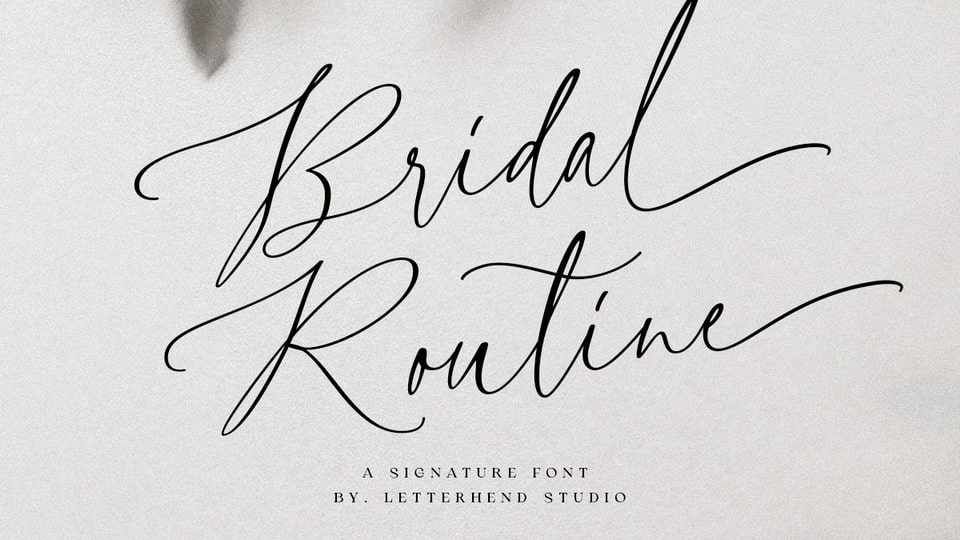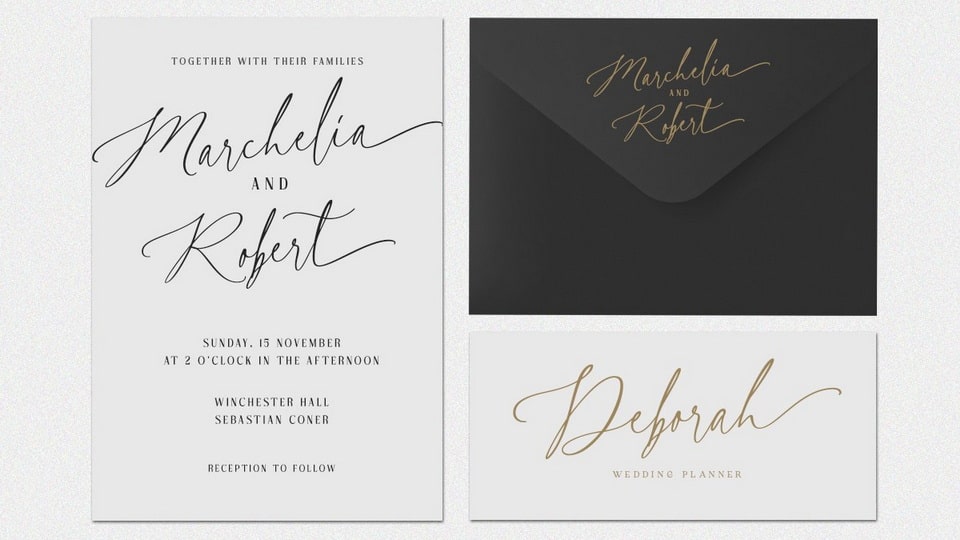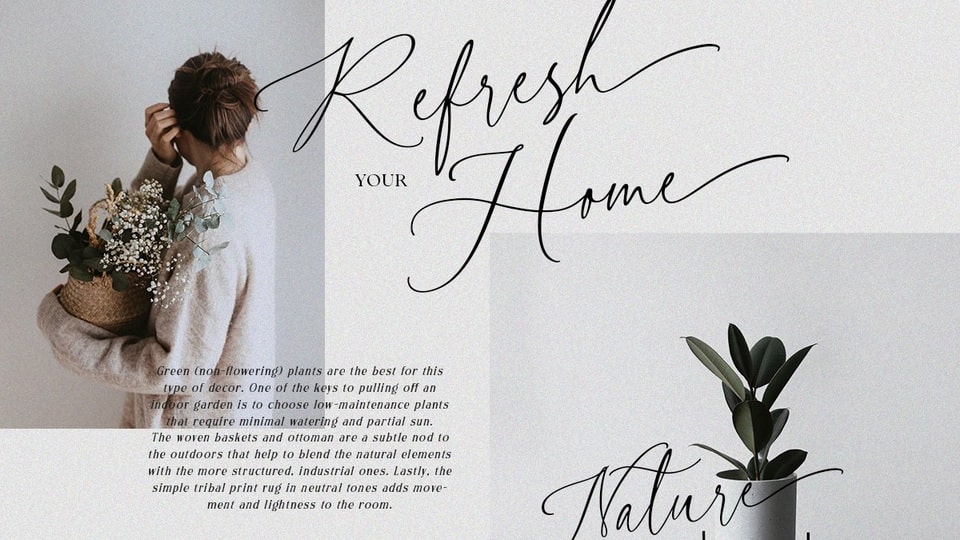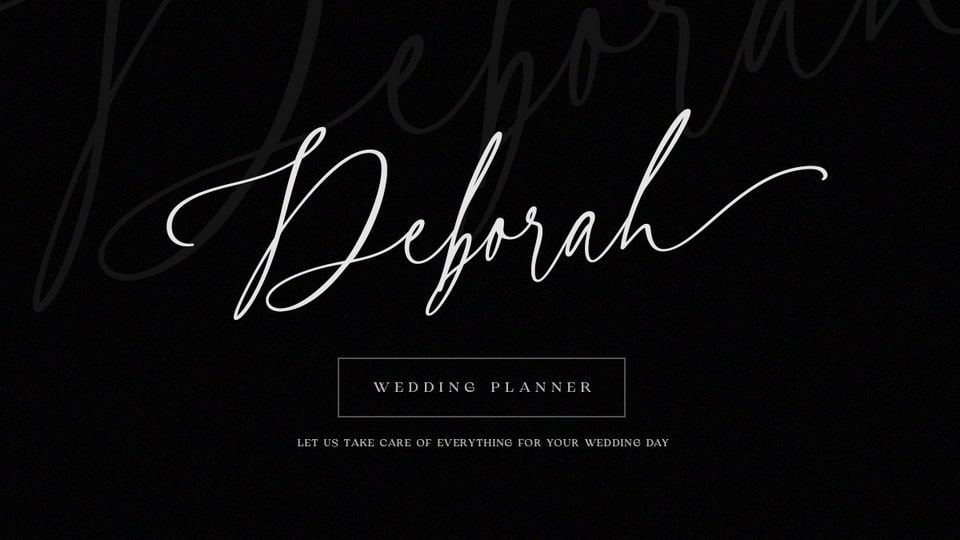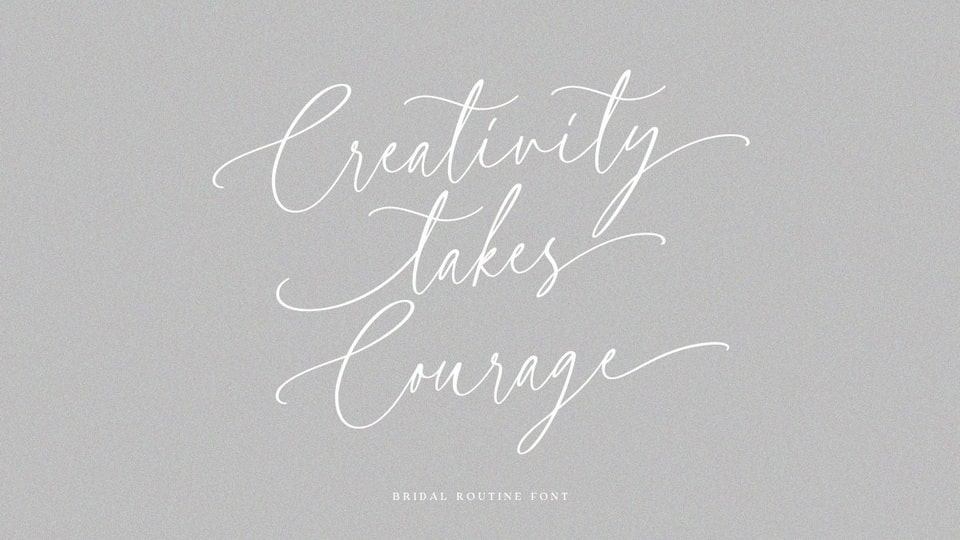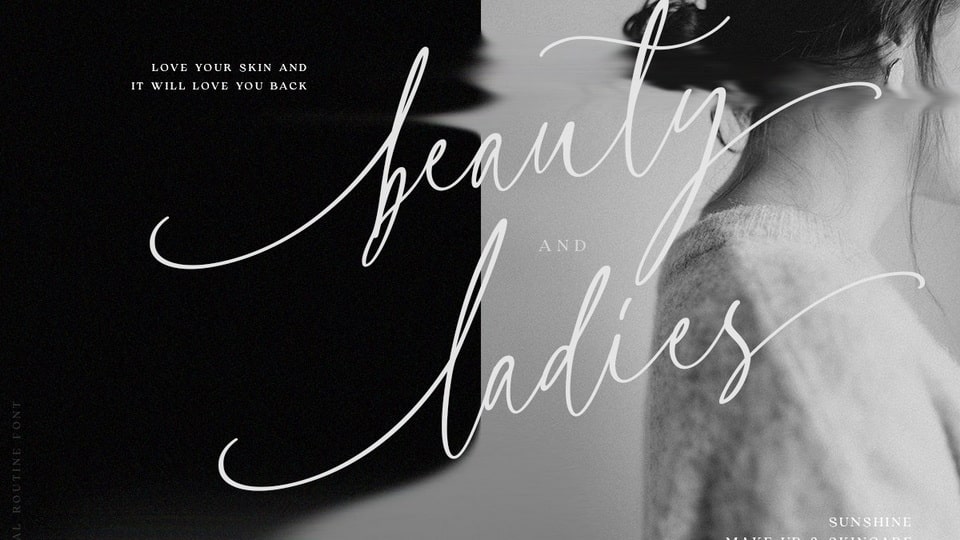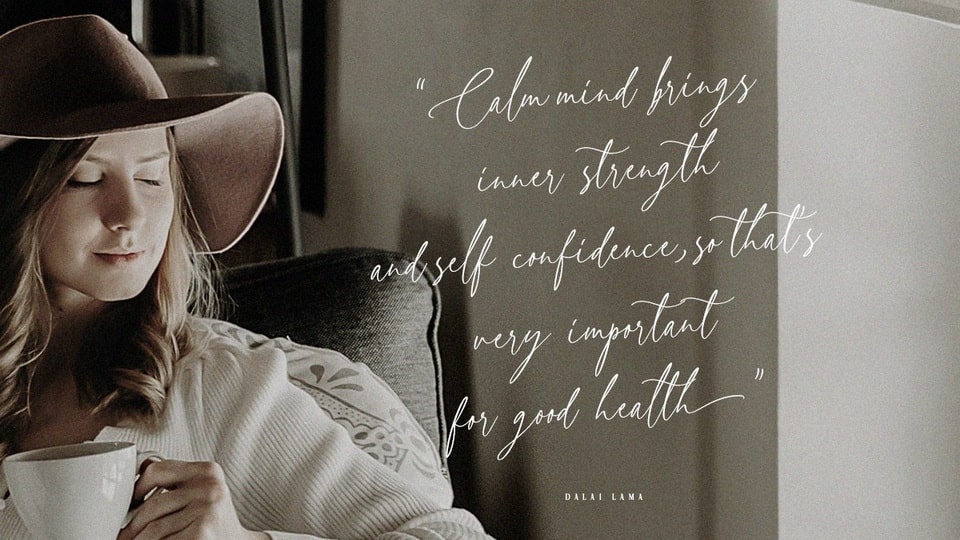
Bridal Routine is a beautiful signature script based on manual hand writing. The stylistic alternate, ligatures and the tick and thin stroke make this font looks a real hand writing instead of typing a font.
Bridal Routine font perfectly made to be applied especially in logo, and the other various formal forms such as invitations, labels, magazines, books, greeting / wedding cards, packaging, fashion or any type of advertising purpose.